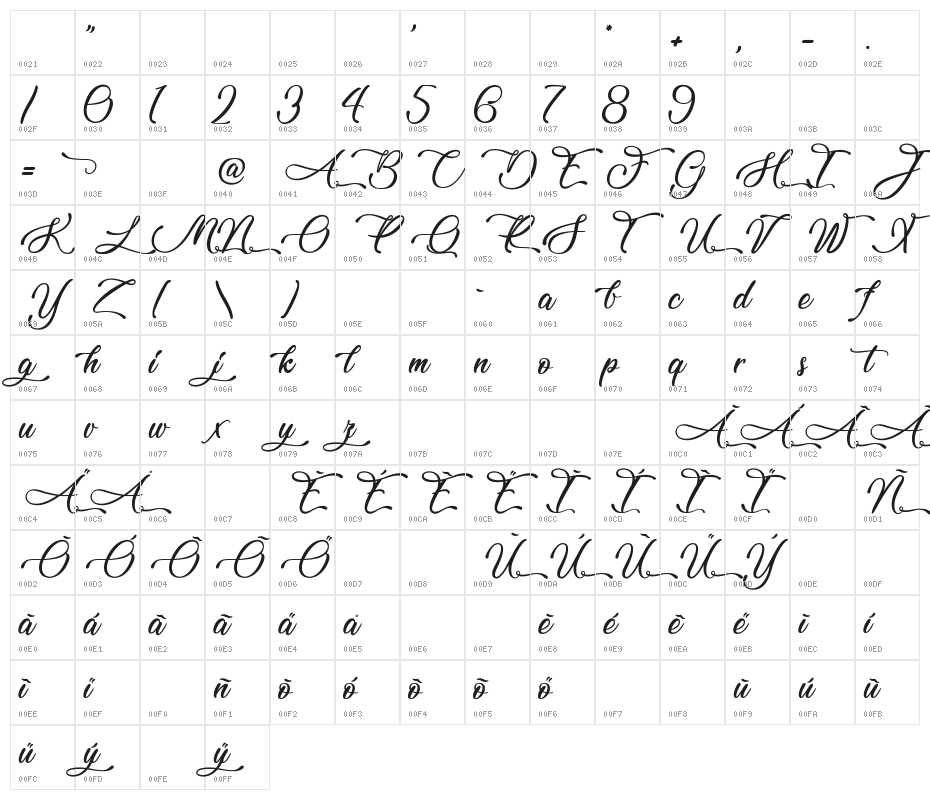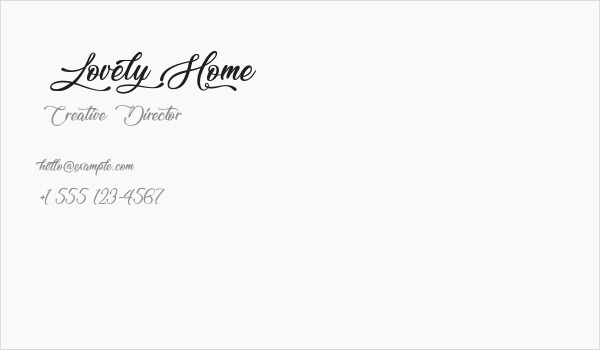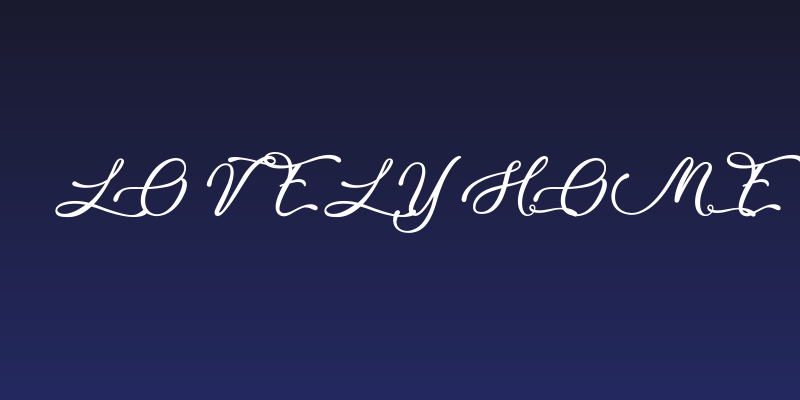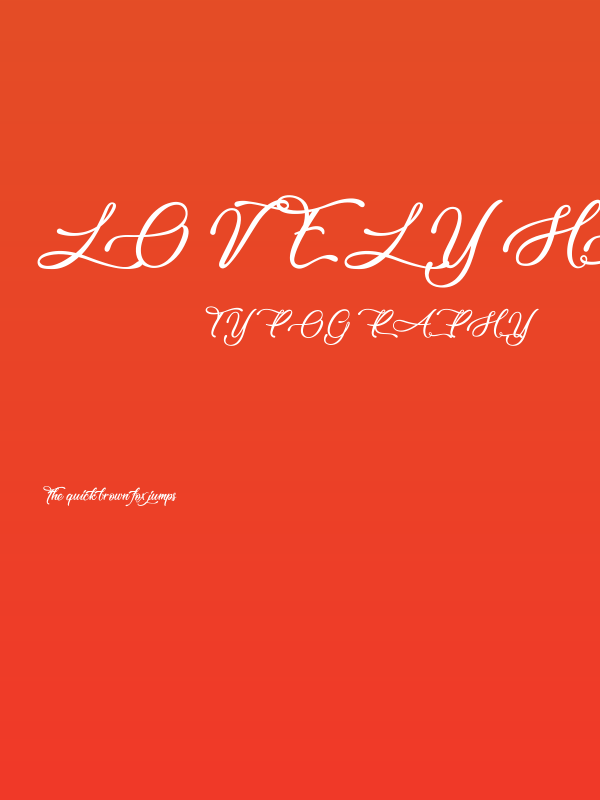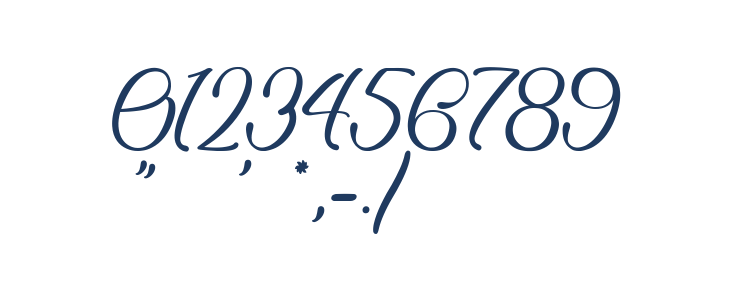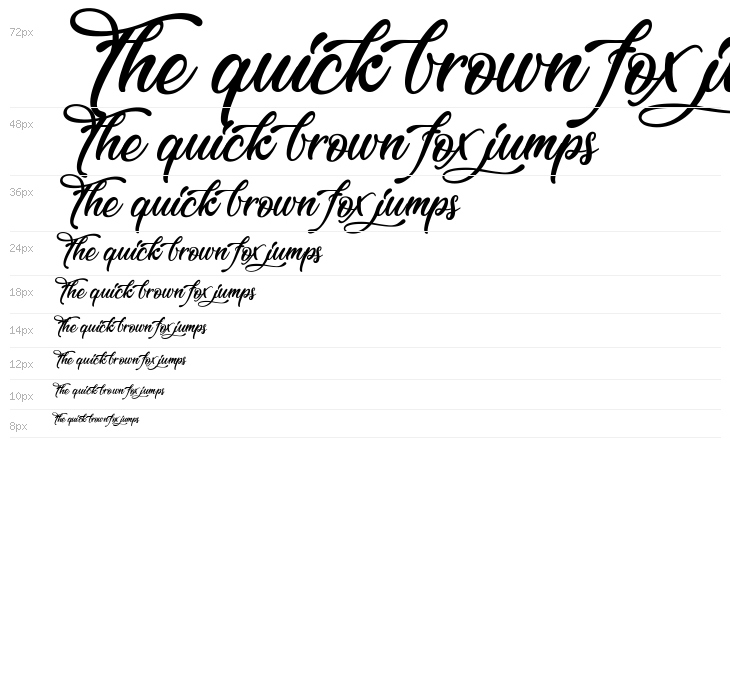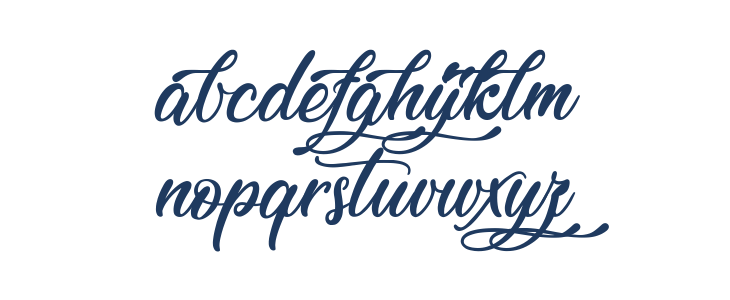
Lovely Home Font
Lovely Home Description
This elegant script font features a flowing, cursive style with intricate loops and flourishes. The uppercase letters are particularly ornate, with sweeping lines that extend beyond the baseline, creating a sense of movement and grace. The lowercase letters maintain a consistent style, with smooth connections between characters that enhance readability while preserving the decorative nature. The numerals are equally stylish, with a slight slant and gentle curves that complement the overall aesthetic. Special characters are thoughtfully designed to match the font's sophisticated appearance, making it suitable for formal invitations, branding, and artistic projects.